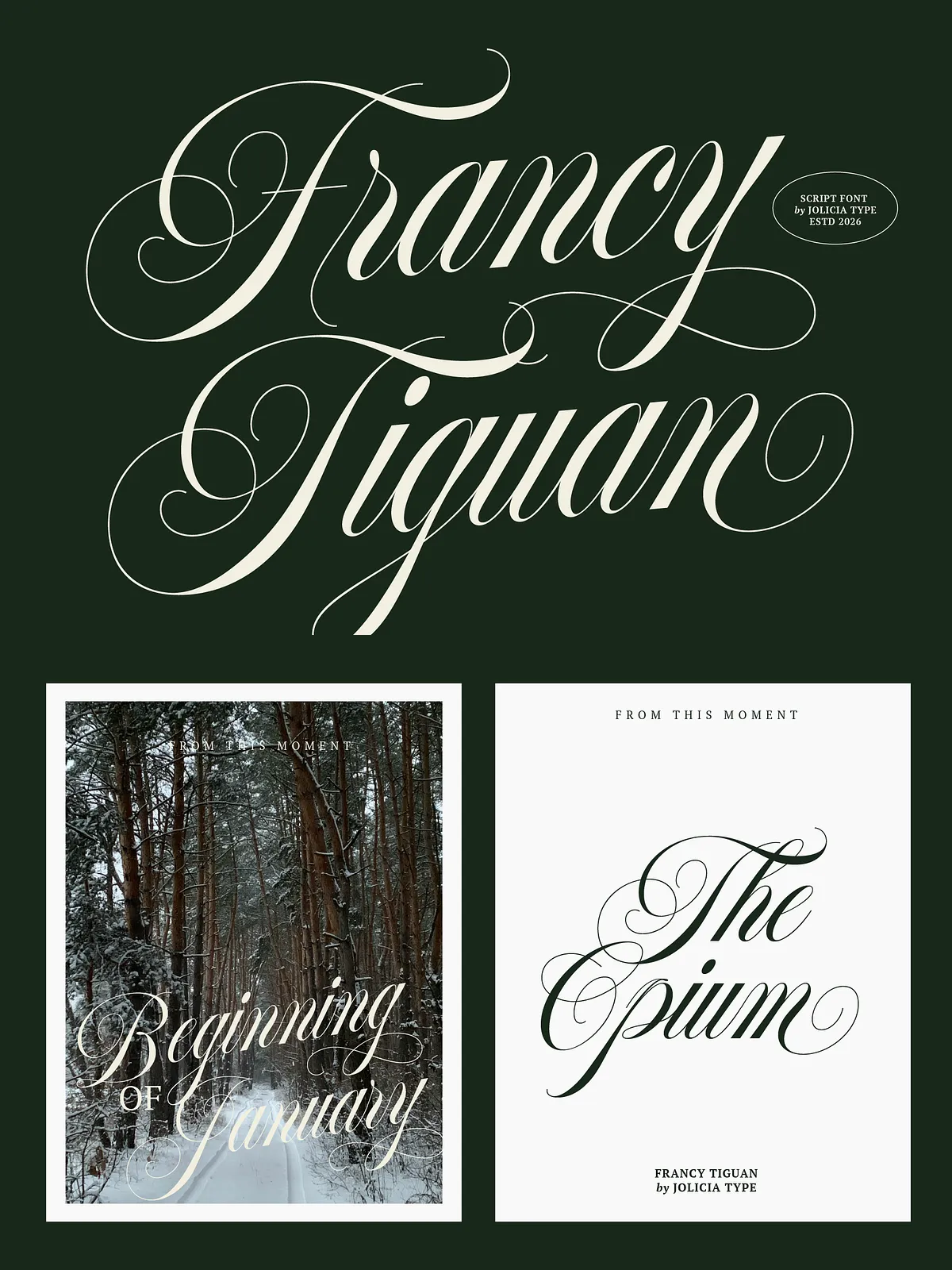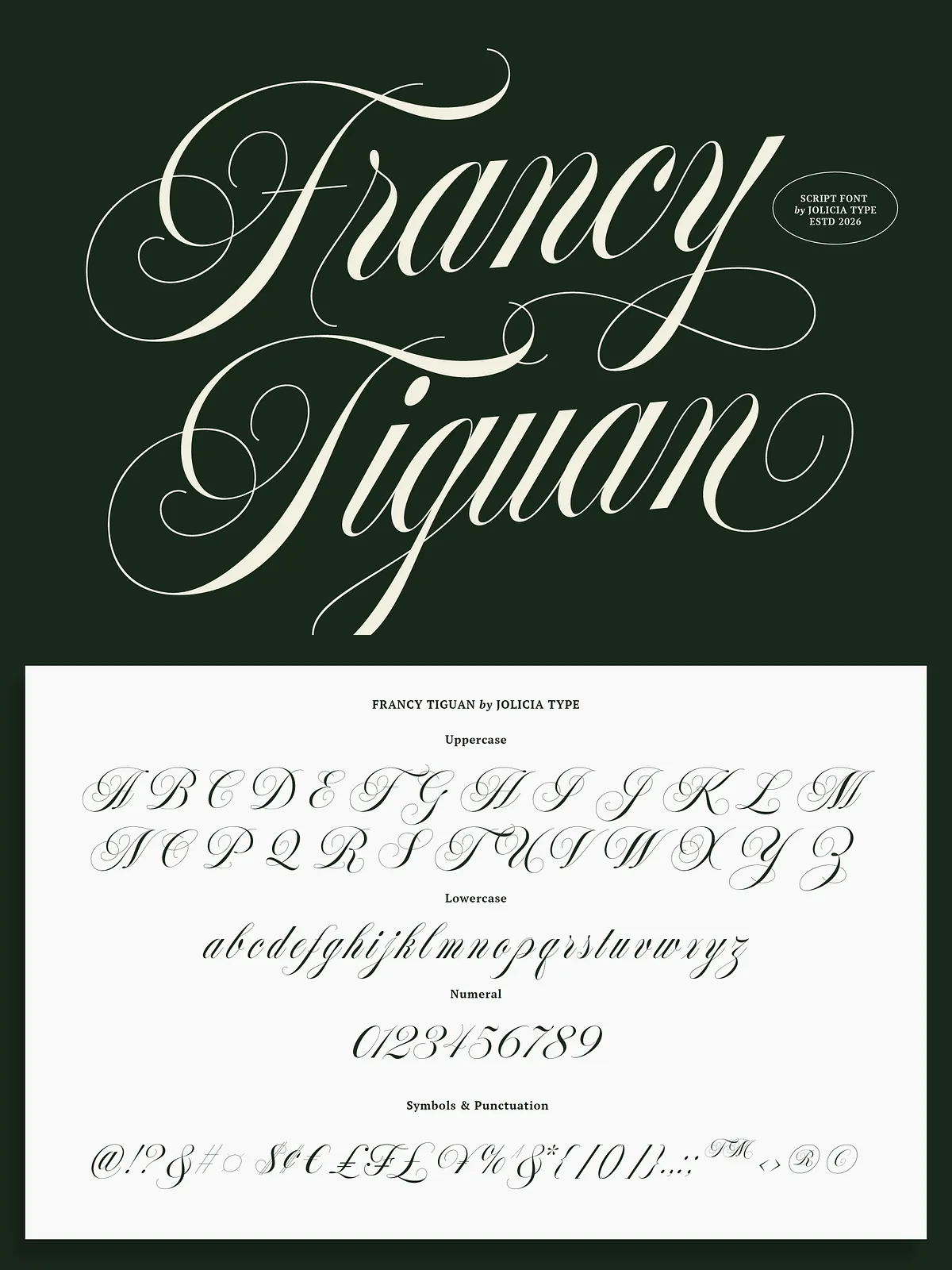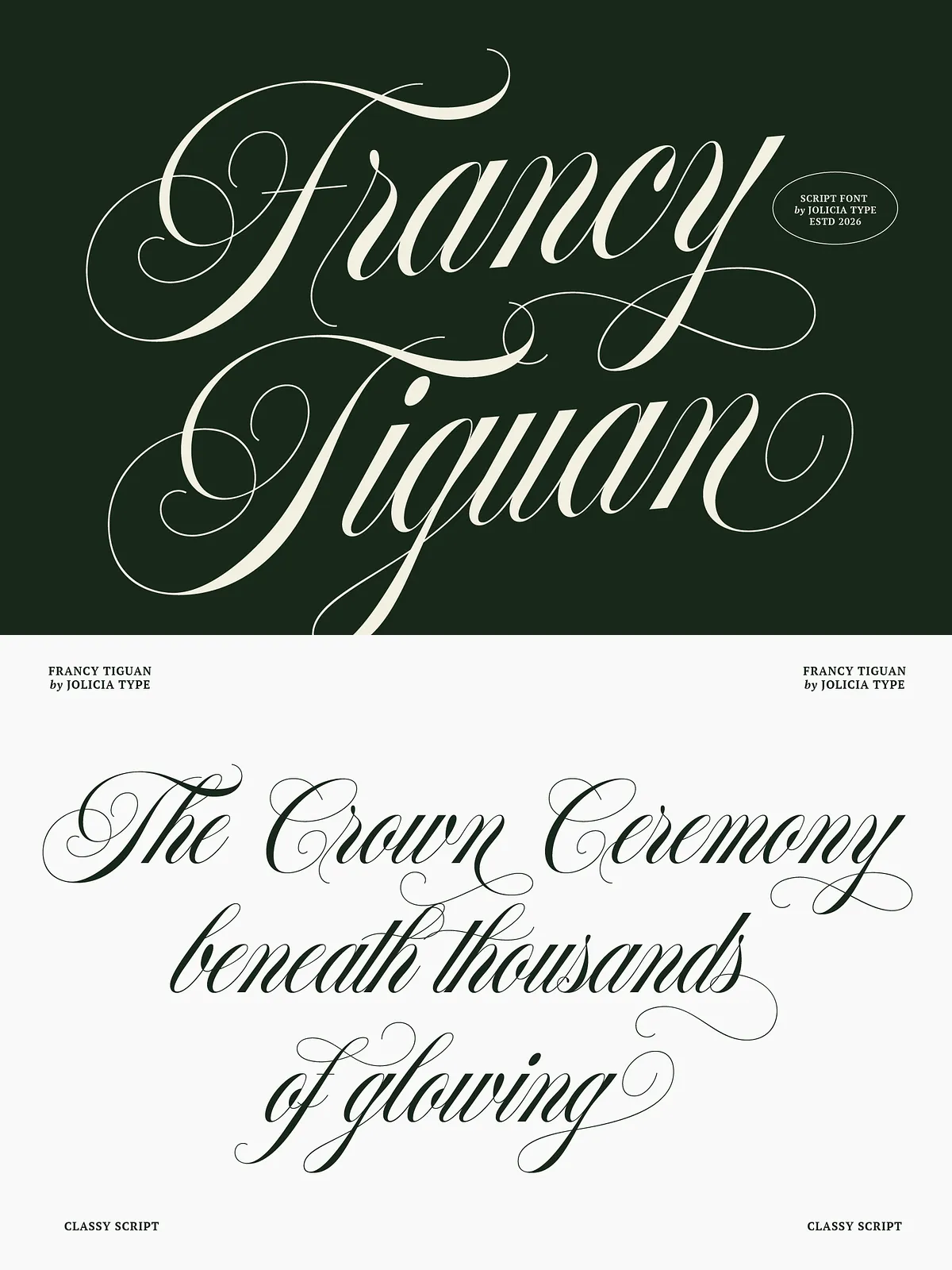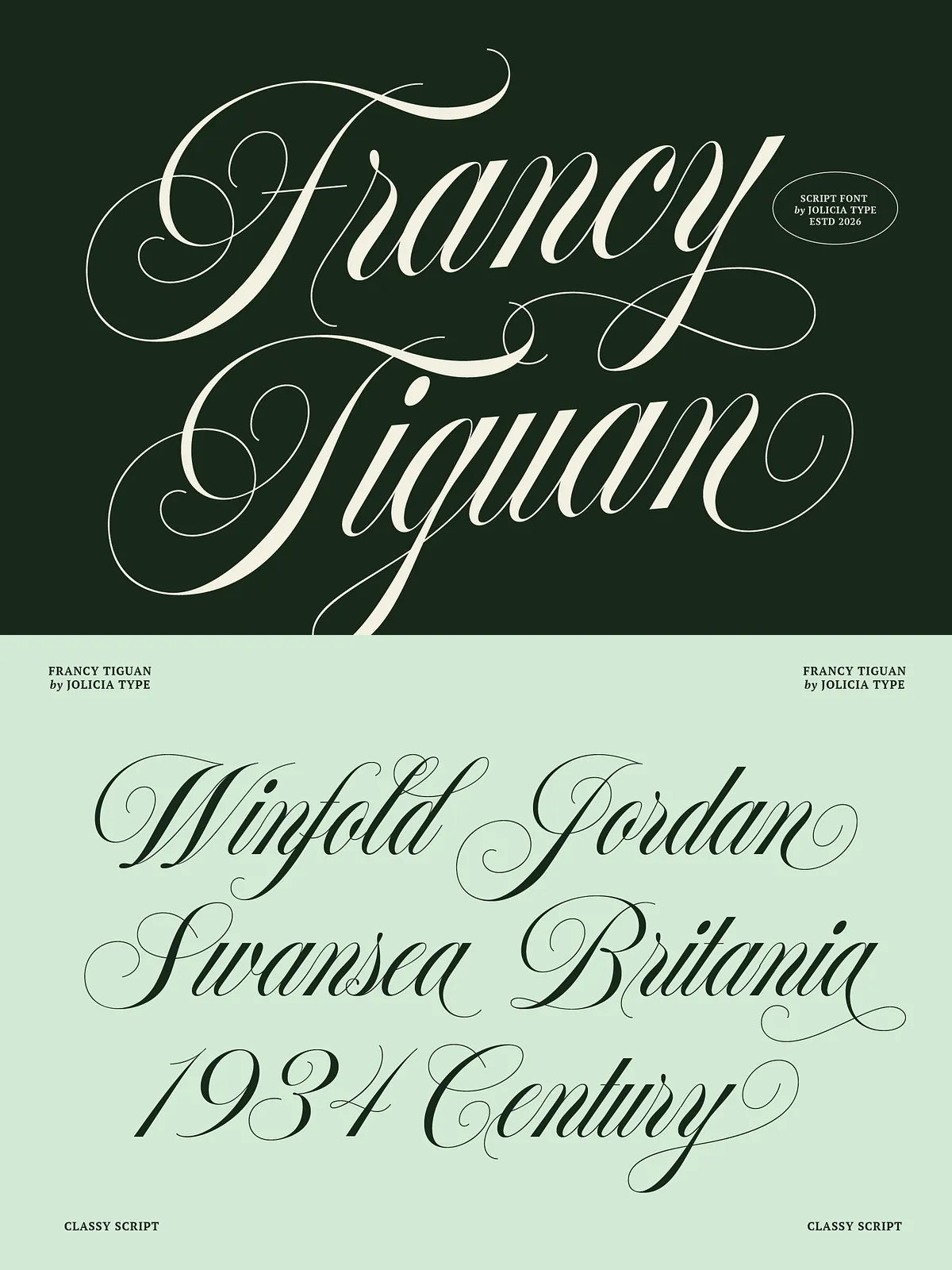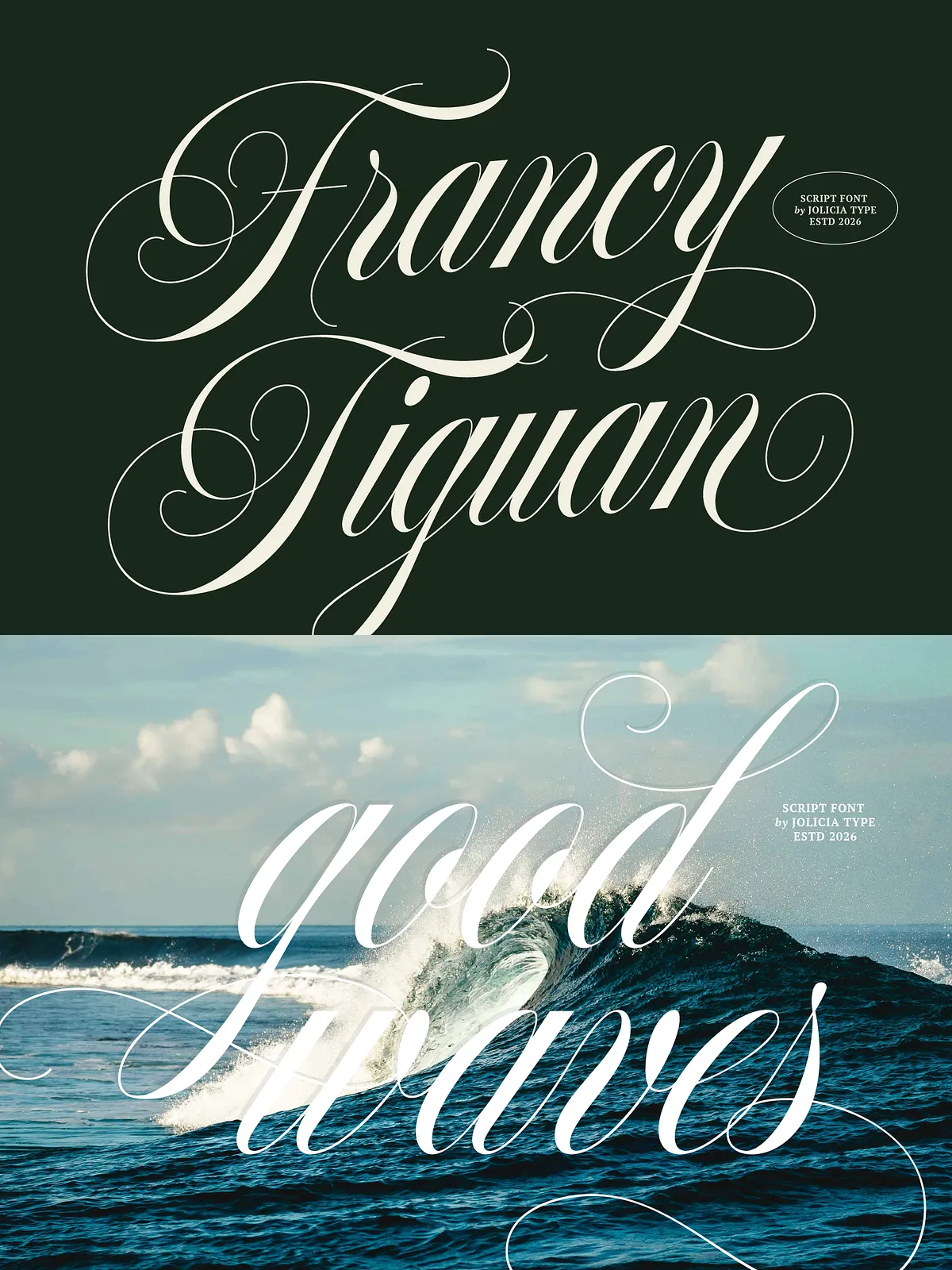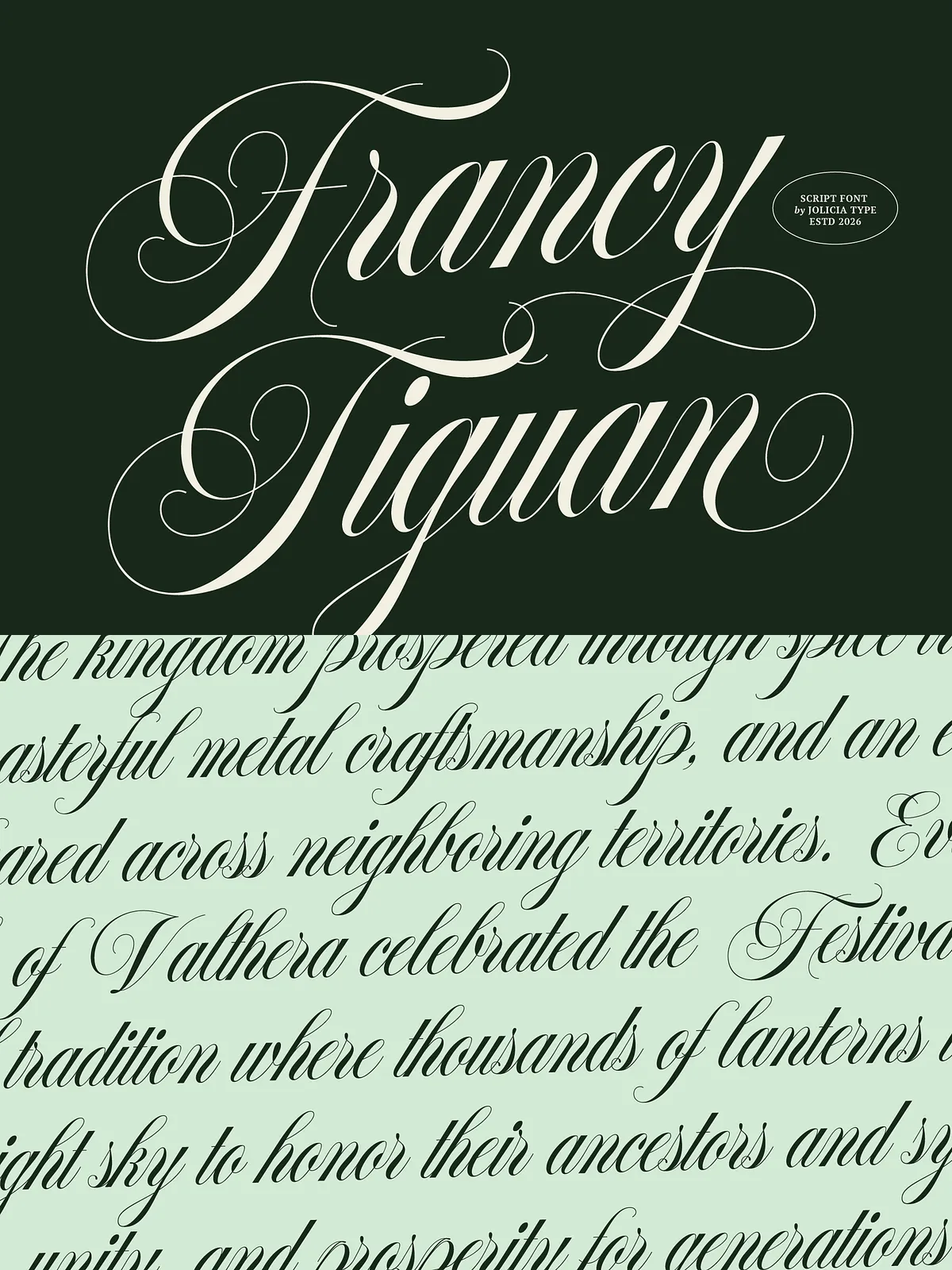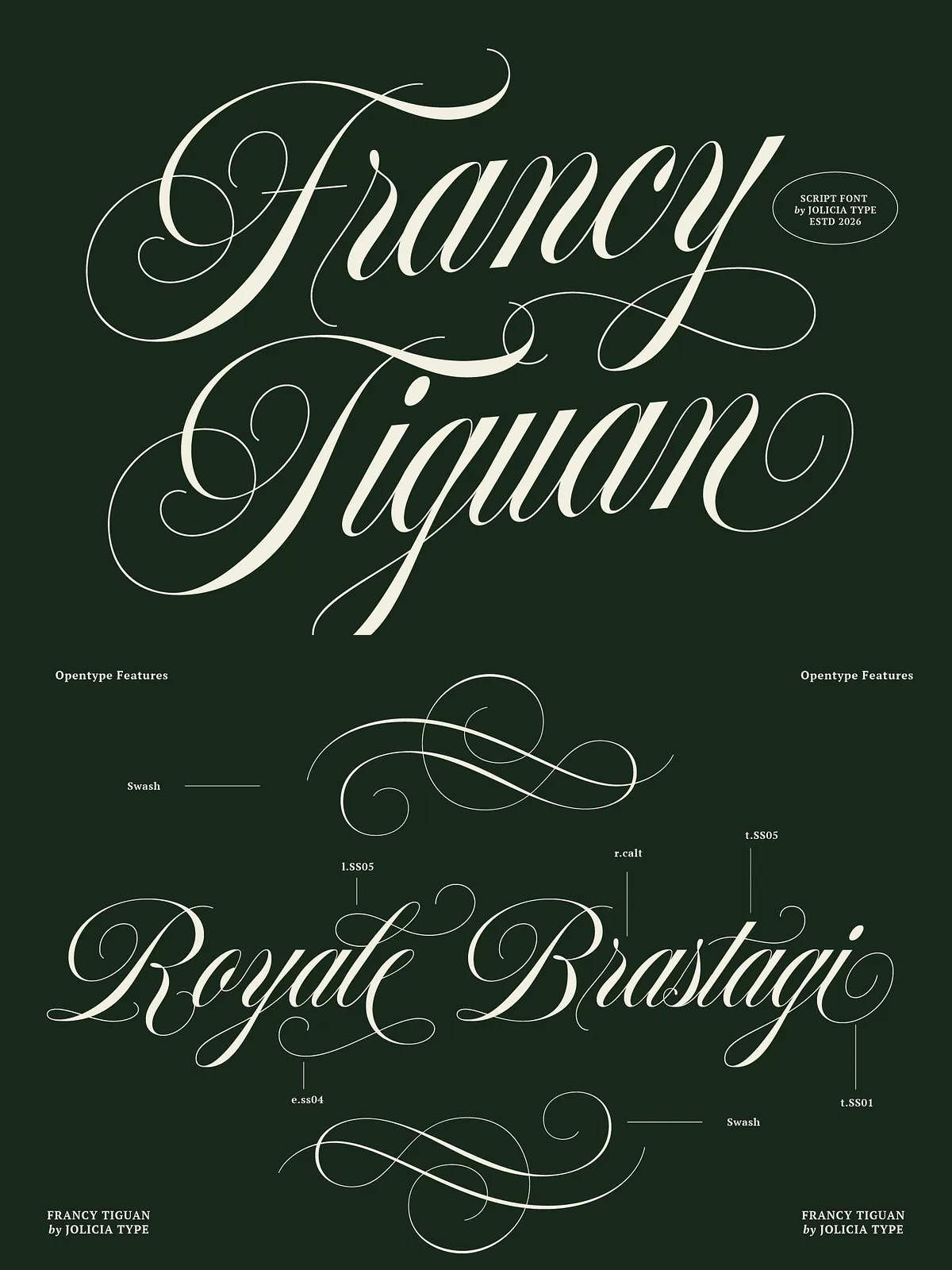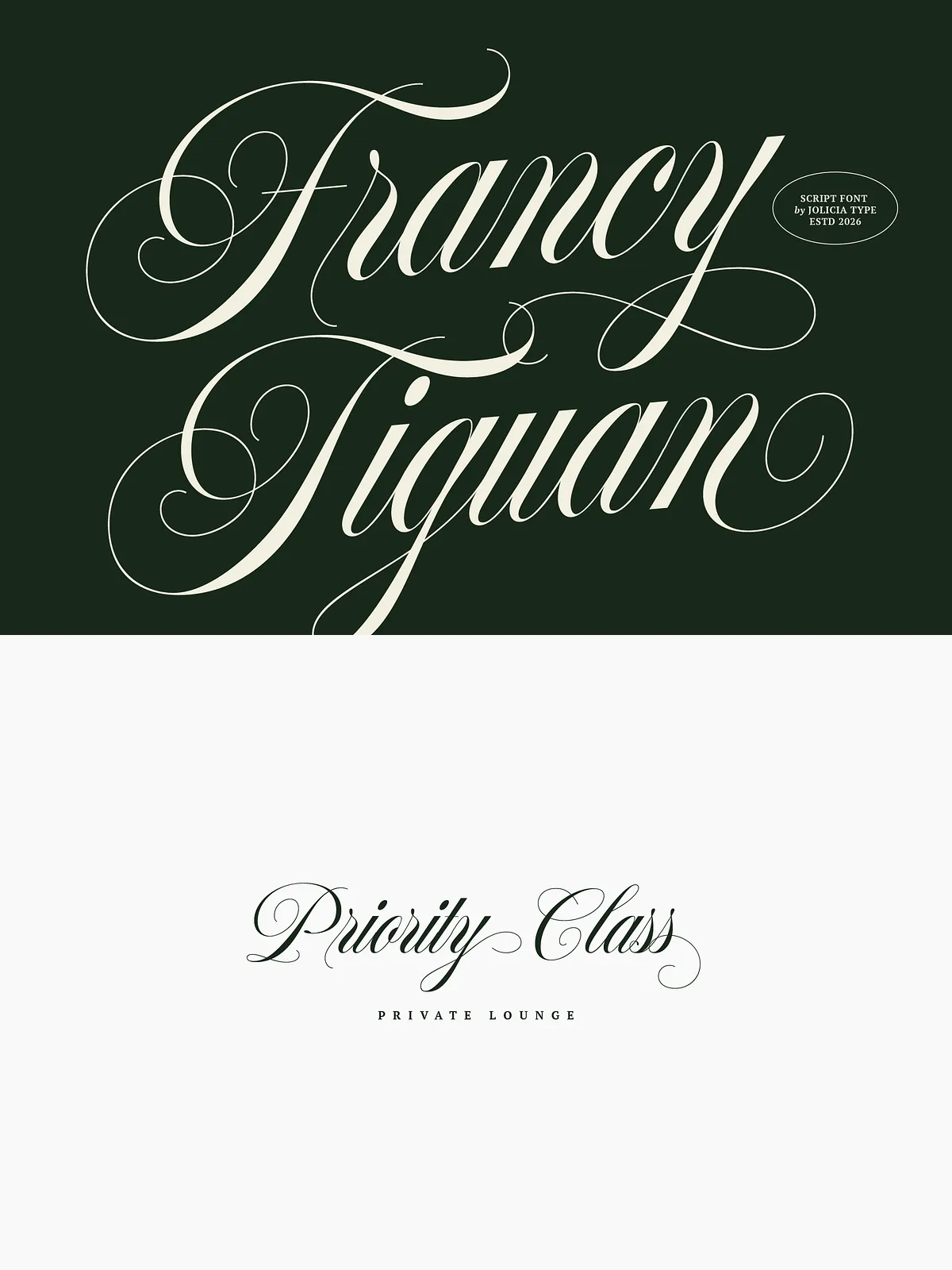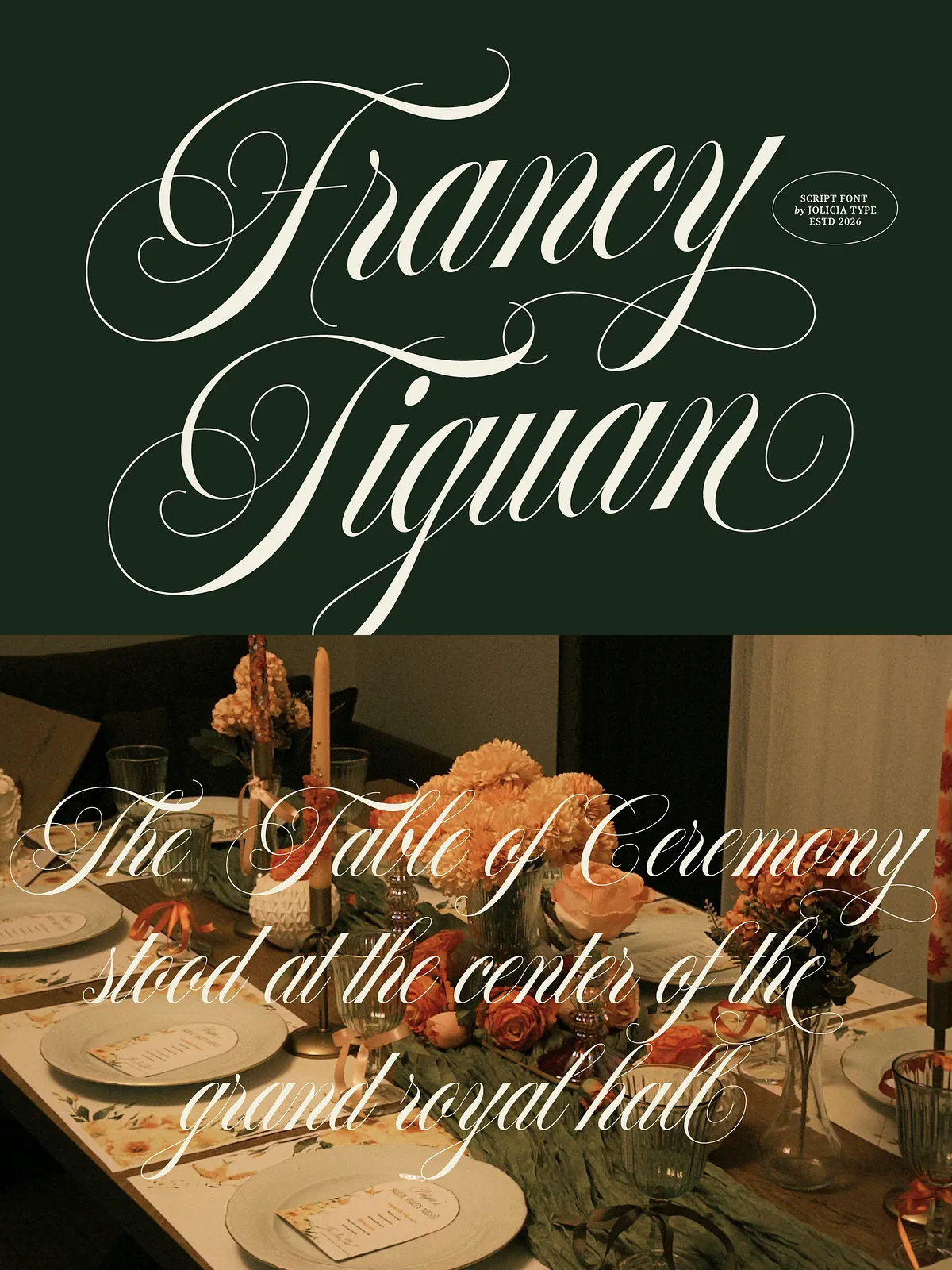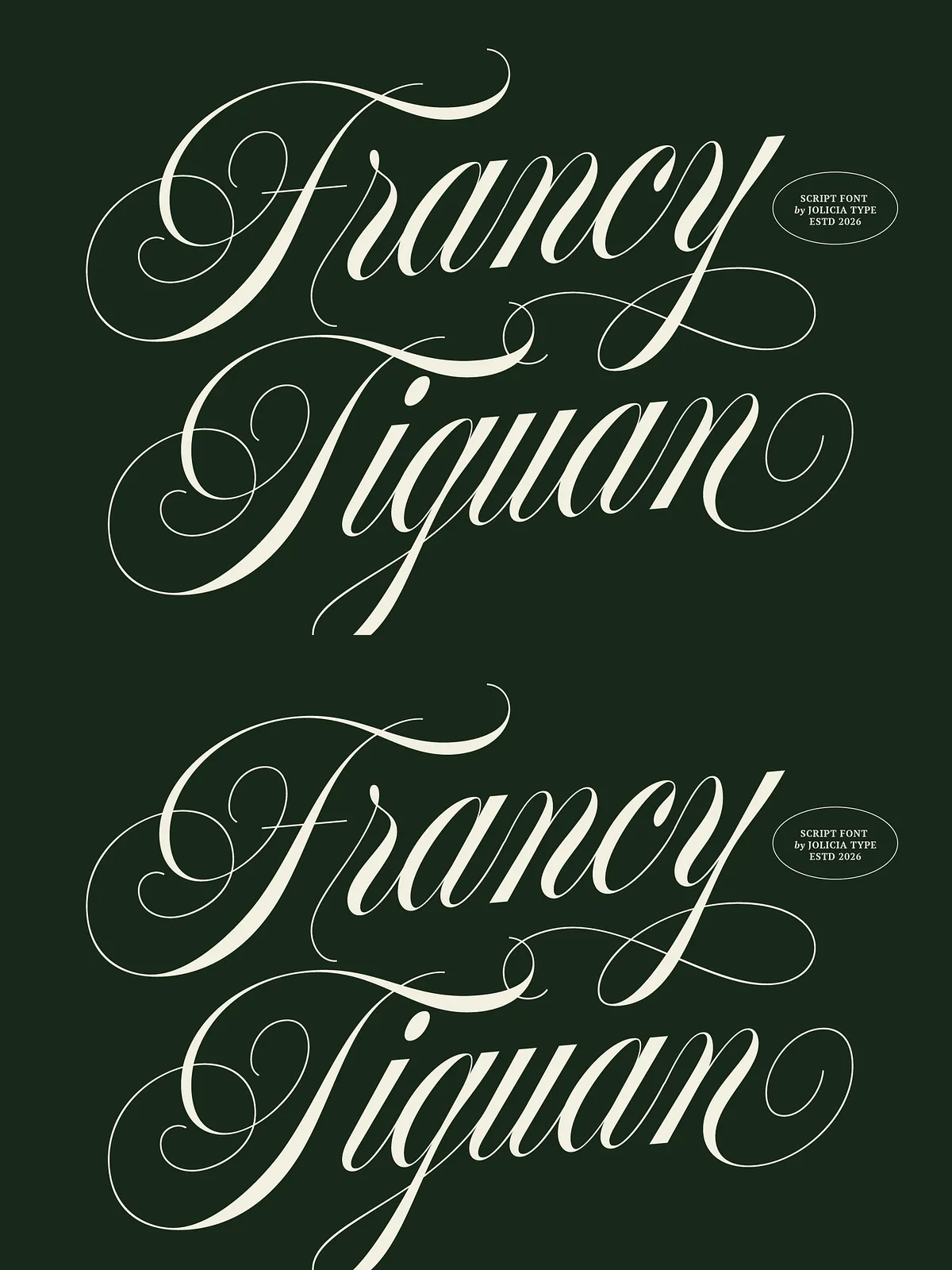
Francy Tiguan stands as a premium script font that masterfully blends the delicate art of calligraphy with the sleek demands of modern luxury design. This typeface is not merely a font; it is a statement piece designed to elevate your brand’s visual identity with an undeniable sense of grace and sophistication. Featuring flowing swashes that dance across the page, graceful curves that guide the reader’s eye with natural rhythm, and refined letterforms that exude confidence, Francy Tiguan delivers a polished and romantic impression. Every character is crafted to ensure that your text feels personal yet professional, intimate yet exclusive.
The stylish handwritten look of Francy Tiguan makes it an ideal choice for projects that require a touch of high-end elegance. Whether you are designing wedding invitations, creating feminine logos, or crafting social media quotes, this font adds a chic and high-end touch to every creative composition. Its versatility allows it to bridge the gap between traditional elegance and contemporary style, making it a powerful tool for designers who want to create memorable and impactful visual narratives.
Key Features and Benefits
Flowing Swashes and Graceful Curves
The standout feature of Francy Tiguan is its intricate swash design. These flowing extensions add movement and flair to the typeface, allowing for dynamic and expressive typography. The swashes are carefully balanced to ensure they enhance rather than clutter the design, providing a sense of fluidity and elegance. The graceful curves of the letterforms ensure that the font remains highly legible, even at larger sizes, while maintaining its romantic and artistic character. This balance between beauty and readability is crucial for effective branding and communication.
Refined Letterforms and Timeless Elegance
Each letter in Francy Tiguan is meticulously designed to reflect a sense of timeless elegance. The refined details in the stroke weights and connections between characters create a cohesive and harmonious look. This attention to detail ensures that the font feels premium and high-quality, which is essential for luxury branding. The timeless nature of the design means that Francy Tiguan will remain relevant and stylish for years to come, making it a long-term asset for your design toolkit.
Versatile Application for Premium Branding
Francy Tiguan is incredibly versatile. It works exceptionally well for feminine logos, where it adds a touch of charm and personality. It is also perfect for beauty packaging, where the elegant script can highlight product names and brand stories. Additionally, it is an excellent choice for editorial design, adding a sophisticated layer to magazine covers and article headers. The font’s ability to adapt to various contexts while maintaining its core aesthetic makes it a valuable tool for any designer working in the luxury or lifestyle space.
Ideal Applications
Wedding Invitations and Stationery
Weddings are events defined by romance and elegance, and Francy Tiguan is the perfect font to capture that essence. Use it for wedding invitations, save-the-dates, and thank-you notes. The script’s flowing nature and refined details create a romantic and inviting tone that sets the stage for a special day. It works beautifully for both the main text and decorative elements, adding a touch of class to every piece of wedding stationery.
Feminine Logos and Brand Identity
For brands targeting a feminine audience, Francy Tiguan offers the perfect blend of strength and grace. Use it to create memorable logos for beauty salons, boutique clothing stores, or lifestyle brands. The font’s stylish handwritten look adds a personal touch that helps build a connection with customers. It conveys a sense of care and attention to detail, which are key values for businesses focused on quality and service.
Beauty Packaging and Cosmetics
In the competitive world of beauty and cosmetics, packaging plays a crucial role in attracting customers. Francy Tiguan is ideal for product labels, box designs, and marketing materials. The font’s elegant and luxurious feel helps to position products as high-end and premium. It adds a sense of exclusivity and sophistication that resonates with consumers looking for quality beauty products. Use it to highlight brand names, product types, and key features.
Social Media and Digital Content
In the digital landscape, Francy Tiguan stands out in social media feeds. Use it for Instagram quotes, Facebook covers, and Pinterest pins. The font’s stylish and romantic aesthetic grabs attention and encourages engagement. It is also suitable for blog headers and website banners, adding a touch of elegance to your online presence. The versatility of the font ensures that it looks great on any device, from smartphones to desktop screens.
Technical Specifications
Complete Character Set
Francy Tiguan includes a comprehensive character set that supports a wide range of Latin-based languages. This includes uppercase and lowercase letters, numbers, and various punctuation marks and symbols. The extensive character support ensures that you can use the font for a variety of projects, from English texts to other Western European languages. The consistent styling across all characters ensures a professional and polished look.